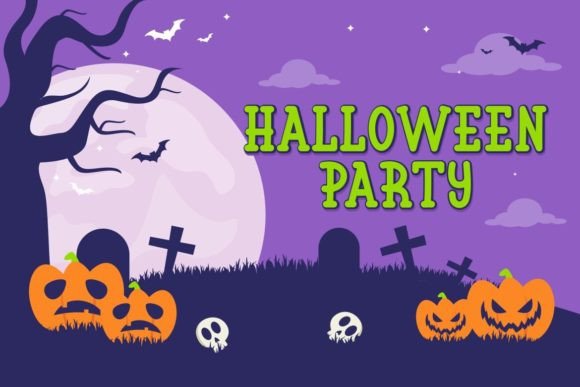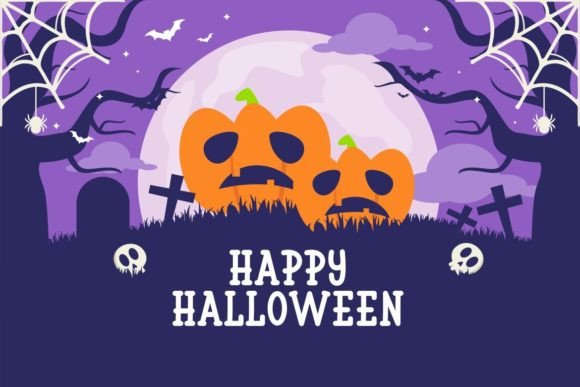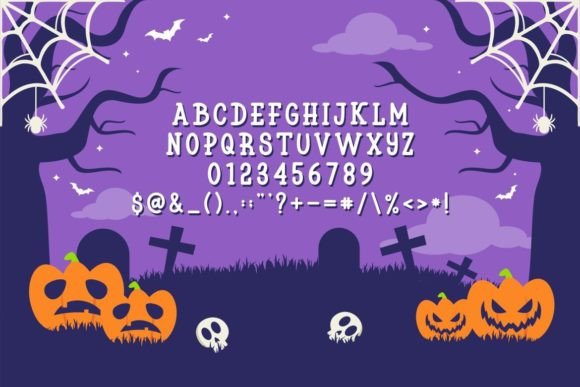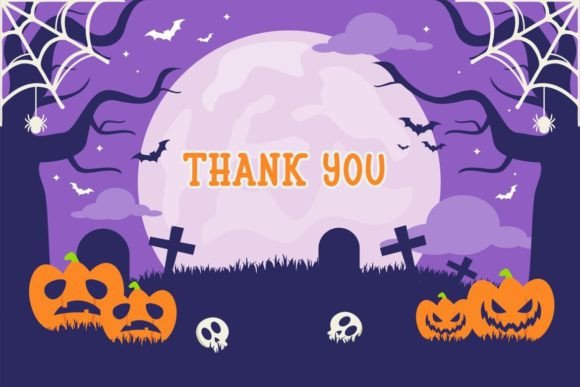
Introduction to Scary Shadow Font
Have you ever been working on a creative project, pouring your heart and soul into it, only to feel like it’s missing that one final touch? You know, that je ne sais quoi that sets it apart from the rest? For designers, this can be a frustrating and all-too-familiar experience. But what if I told you there’s a way to add a haunting touch to your designs and make them truly unforgettable?
Enter the Scary Shadow Font, a free download that’s perfect for all your spooky season needs. With its high-quality design and transparent background, this font is a valuable resource for any designer looking to add a little extra eeriness to their projects. Whether you’re creating creepy posters, eerie invitations, or anything in between, the Scary Shadow Font is sure to be a game-changer.
Key Features of Scary Shadow Font
- Unique, high-quality design for creative projects: The Scary Shadow Font is perfect for adding a spooky touch to your designs, making it ideal for Halloween-themed projects, horror movies, or any other creative project that requires a scary atmosphere.
- Perfect for creative projects: The Scary Shadow Font is a valuable design resource for anyone working on creative projects that require a spooky or eerie atmosphere, making it a must-have for designers, artists, and writers.
Honest Review: Scary Shadow Font
I recently stumbled upon the Scary Shadow Font and was excited to dive in and see what it’s all about. As a designer, I’m always on the lookout for unique and high-quality design resources to elevate my creative projects. The Scary Shadow Font definitely delivers on that front.
What works well with this font is its versatility. The transparent background allows for seamless layering and manipulation, making it a great addition to any design project. The bold, gothic-inspired design is perfect for creating a spooky or mysterious atmosphere, which is exactly what I was looking for. The font is also incredibly easy to use, even for beginners. ✨
Here are some of the key features that I appreciate about the Scary Shadow Font:
- Perfect for creative projects requiring a spooky or mysterious vibe
That being said, I do have a few minor complaints. The font can be a bit difficult to read in smaller sizes, especially for those with vision impairments. Additionally, the font’s bold design can sometimes be overwhelming if not used judiciously. ⚠️
Overall, I’m thoroughly impressed with the Scary Shadow Font. It’s a great addition to any designer’s toolkit, and I highly recommend it for any creative project requiring a spooky or mysterious vibe. Just be sure to use it wisely, and you’ll be sure to get the desired effect.